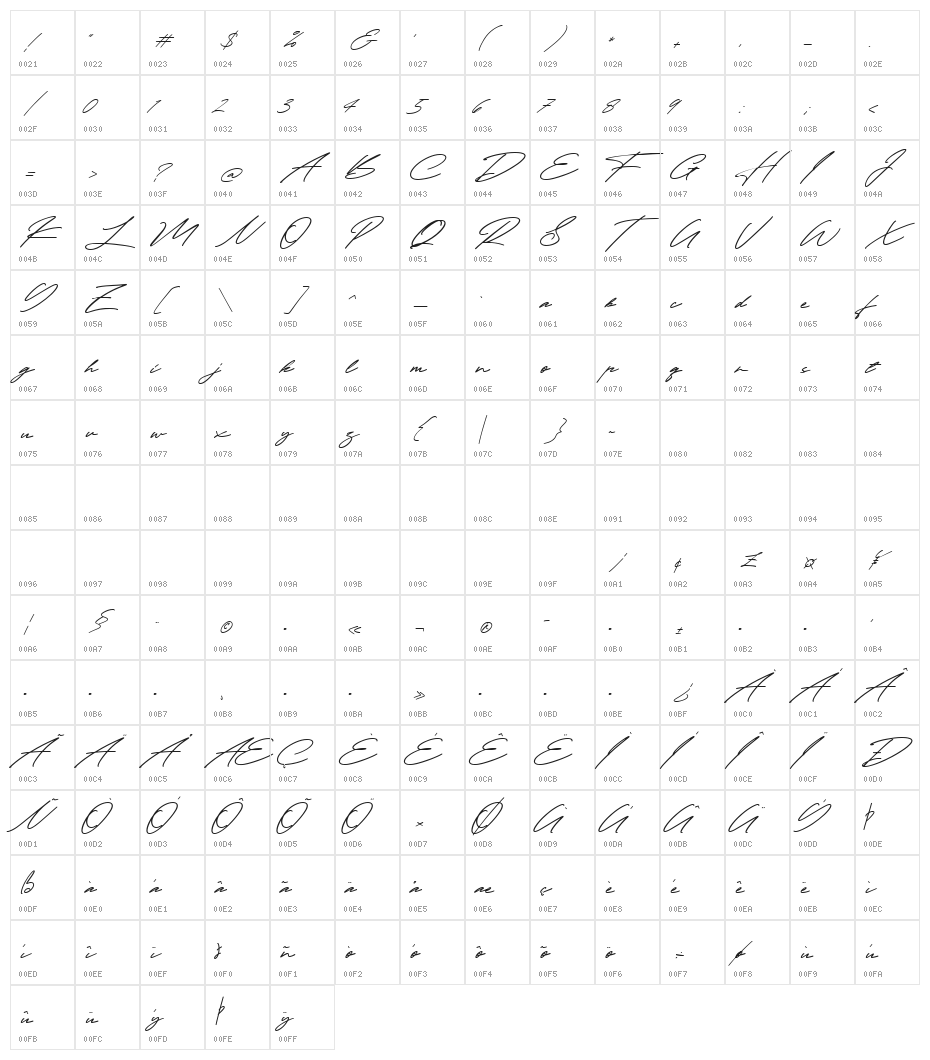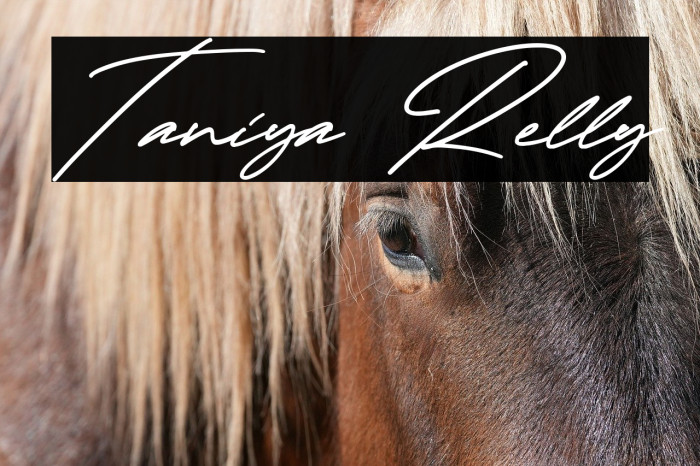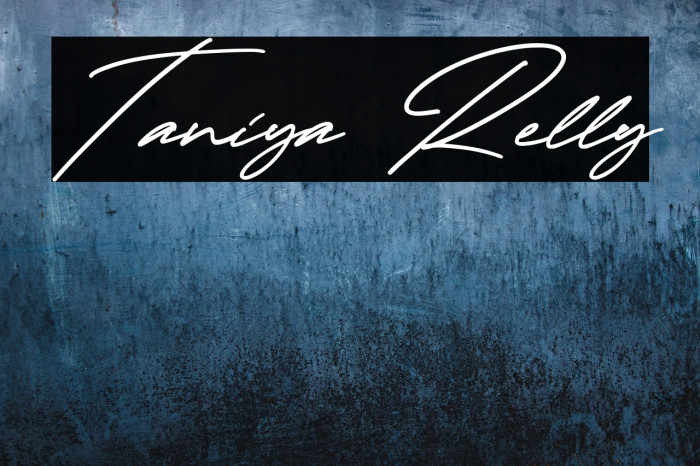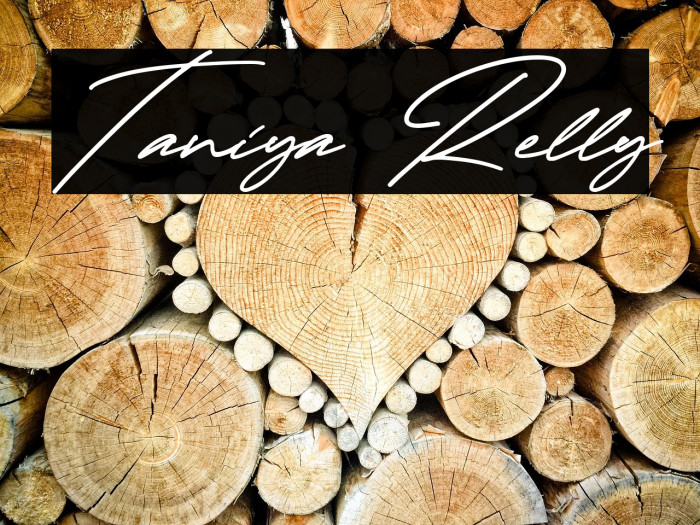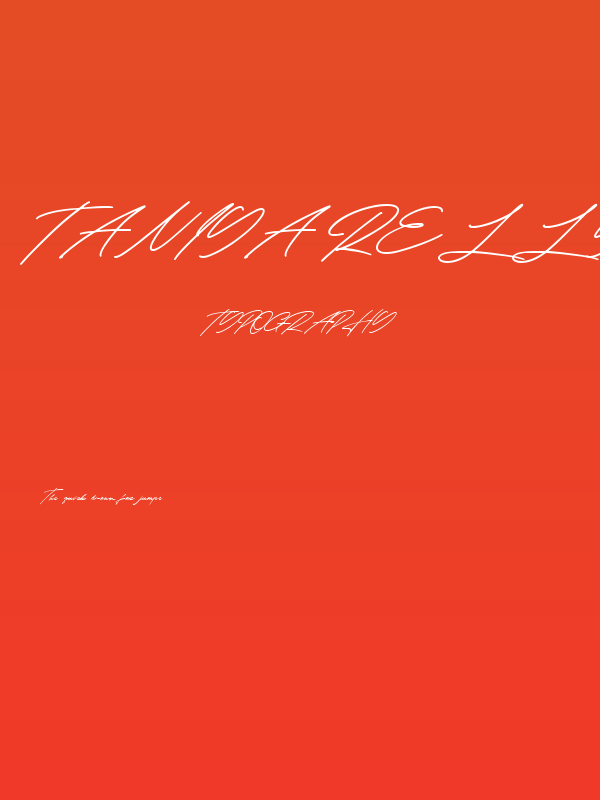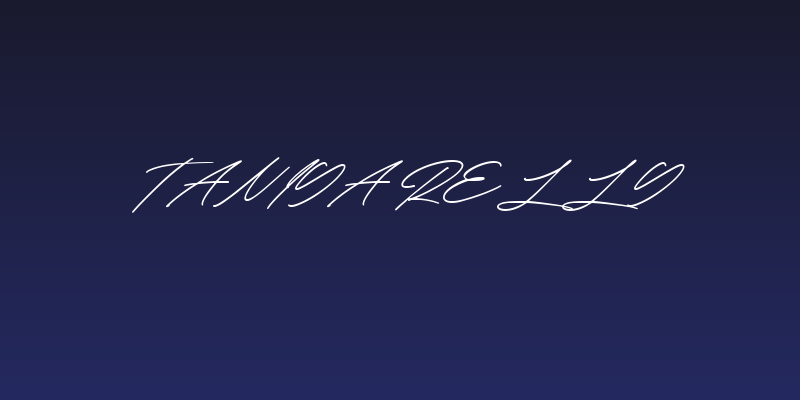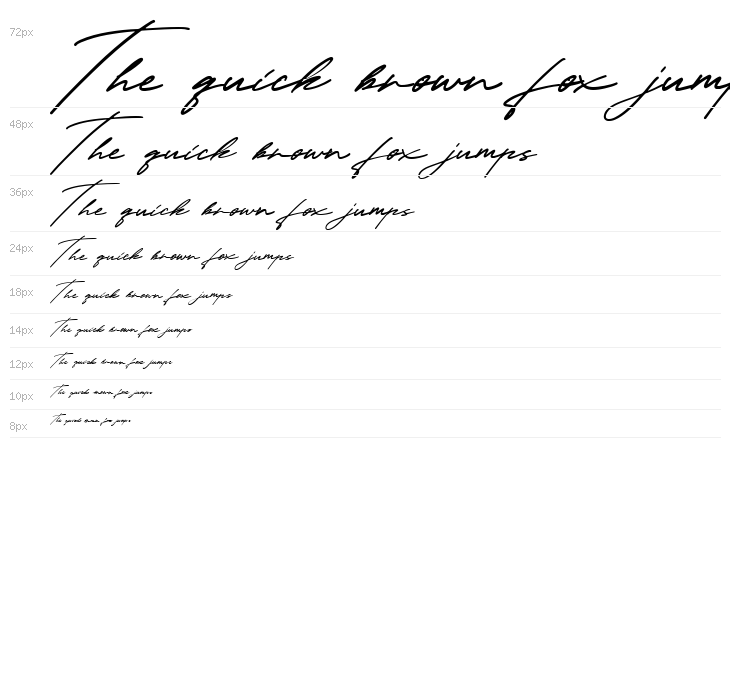
Taniya Relly Font
Taniya Relly Description
This font exudes elegance and sophistication with its fluid, cursive style. The characters are connected in a seamless flow, reminiscent of traditional calligraphy. Each letter is crafted with a graceful curve, giving it a sense of movement and dynamism. The uppercase letters are bold and prominent, while the lowercase letters maintain a delicate balance, enhancing readability. The numerals are consistent with the overall style, adding a touch of refinement. Special characters are thoughtfully designed, complementing the script's aesthetic. This font is perfect for projects that require a personal touch, such as invitations, greeting cards, or branding materials.
| Overall Style | Elegant, Calligraphic |
| Use Case | Logos, Invitations, Artistic Designs |
| Proposed Projects | Ideal for wedding invitations, elegant branding, personal stationery, and artistic projects. |